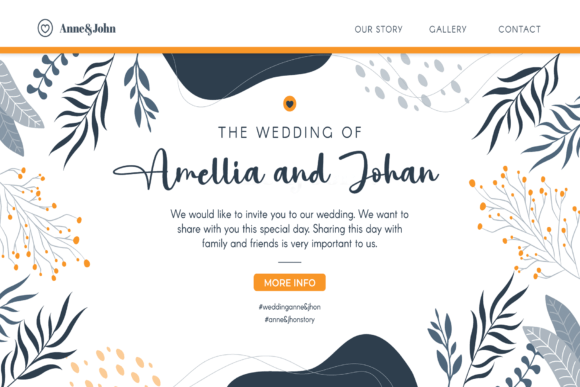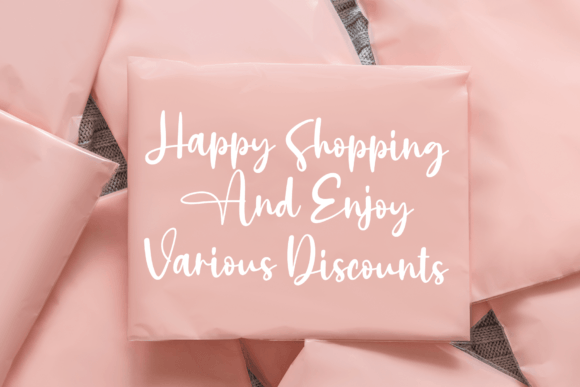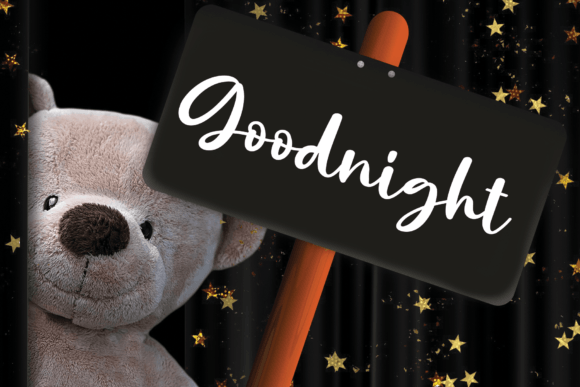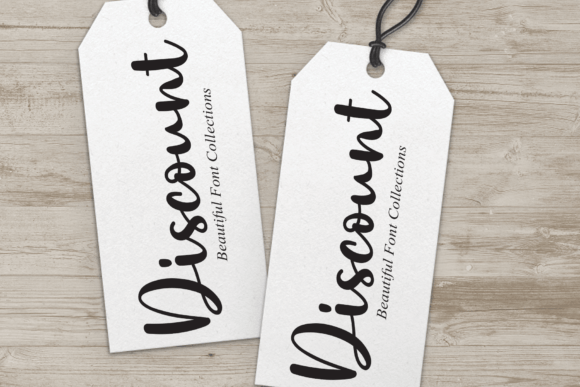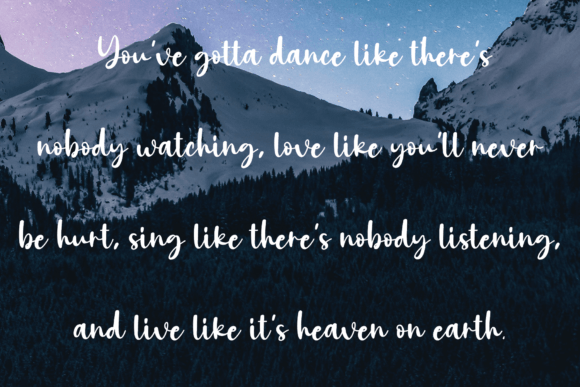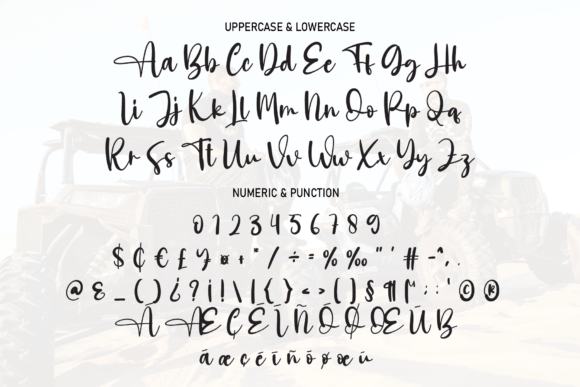
Introducing Comrade Font: The Perfect Blend of Playfulness and Style
In the world of typography, fonts play a crucial role in conveying the tone and personality of a brand or design. For designers and crafters looking for a font that exudes a youthful spirit while maintaining professionalism, Comrade Font is an excellent choice. This versatile font is suitable for a wide range of projects, from corporate branding designs to casual social media posts.
What is Comrade Font?
Comrade Font is a modern, playful, and stylish typeface that is designed to add a touch of personality to any design project. Its unique blend of curves and lines creates a distinctive look that is both fun and sophisticated. Whether you’re working on a professional project, such as a branding design or a website, or a casual project, like a poster or social media post, Comrade Font is the perfect choice.
Key Features of Comrade Font
- Playful and Youthful Spirit: Comrade Font is designed to evoke a sense of playfulness and youthfulness, making it perfect for designs that require a fresh and energetic feel.
- Professional and Stylish: Despite its playful nature, Comrade Font is also highly professional and can be used for corporate branding designs, business cards, and other professional projects.
- Versatile: Comrade Font is suitable for a wide range of design projects, including branding designs, labels, websites, business cards, packaging, posters, flyers, quotes, social media posts, invitations, and special occasions cards.
- Easy to Read: Comrade Font is highly legible, making it easy to read in various sizes and resolutions.
Use Cases for Comrade Font
Comrade Font is an incredibly versatile typeface that can be used for a wide range of design projects. Here are some use cases where Comrade Font shines:
- Branding Designs: Use Comrade Font to create a unique and memorable brand identity that reflects your company’s personality and values.
- Labels and Packaging: Comrade Font is perfect for creating eye-catching labels and packaging designs that stand out on store shelves.
- Websites and Digital Platforms: Use Comrade Font to create a consistent brand voice across your website and digital platforms.
- Business Cards and Stationery: Comrade Font is a great choice for business cards, letterheads, and other stationery items.
- Social Media Posts: Use Comrade Font to create engaging and shareable social media posts that reflect your brand’s personality.
- Posters and Flyers: Comrade Font is perfect for creating eye-catching posters and flyers that grab attention.
- Invitations and Special Occasions Cards: Use Comrade Font to create unique and personalized invitations and special occasions cards.
Why Choose Comrade Font?
With so many fonts available, why choose Comrade Font? Here are a few reasons:
- Unique Personality: Comrade Font has a unique personality that sets it apart from other fonts.
- Versatility: Comrade Font is highly versatile and can be used for a wide range of design projects.
- Easy to Read: Comrade Font is highly legible, making it easy to read in various sizes and resolutions.
- Professional and Playful: Comrade Font strikes the perfect balance between professionalism and playfulness.
In conclusion, Comrade Font is an excellent choice for designers and crafters looking for a playful and stylish font with a youthful spirit. Its versatility, legibility, and unique personality make it perfect for a wide range of design projects, from professional branding designs to casual social media posts. Whether you’re working on a corporate project or a personal design, Comrade Font is sure to add a touch of personality and style to your work.